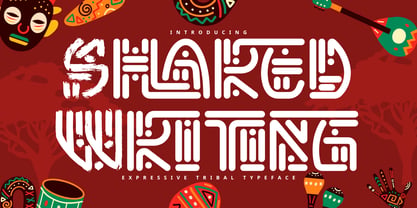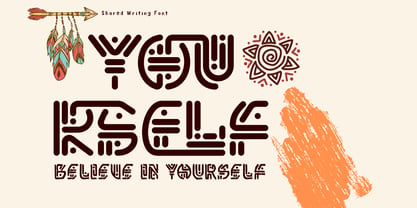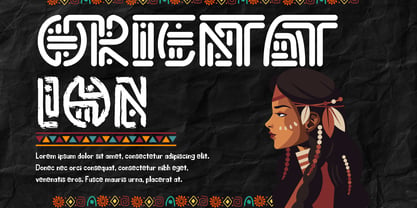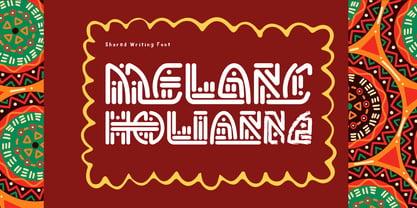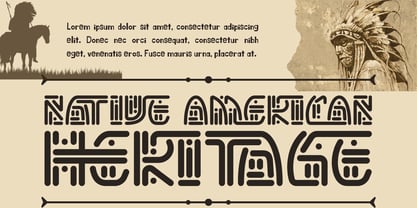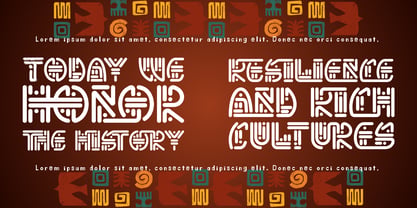
Shared Writing
by 177Studio
The Shared Writing Font Family was designed by 177Studio and published by 177Studio. Shared Writing contains 2 styles and family package options. More about this family
• Shared Writing Regular
• Shared Writing Italic
Shared Writing Font – African-Inspired Tribal Maze & Geometric Ethnic Display Font, a captivating ethnic display font inspired by traditional African woven patterns, ancient geometric mazes, and tribal folk art. Built with smooth rounded monoline paths, intricate interlocking corridors, and embedded inline dot accents, this typeface brings an authentic cultural rhythm and handcrafted heritage to your visual designs.